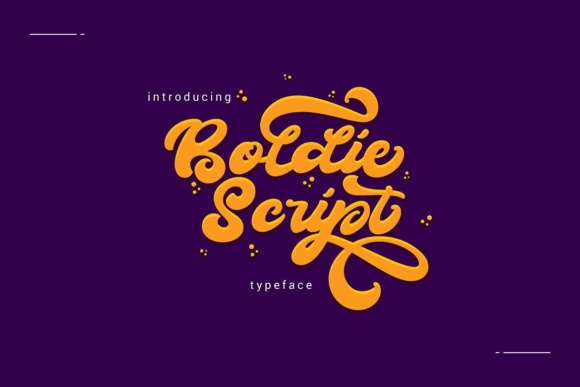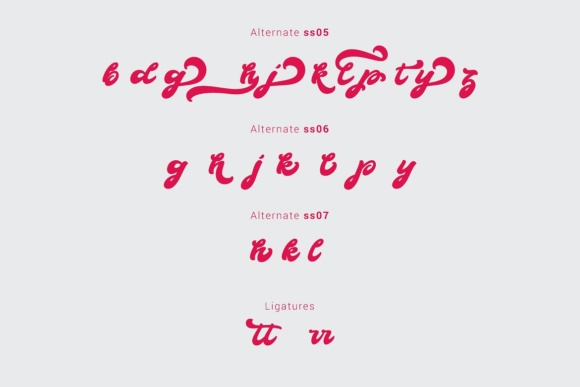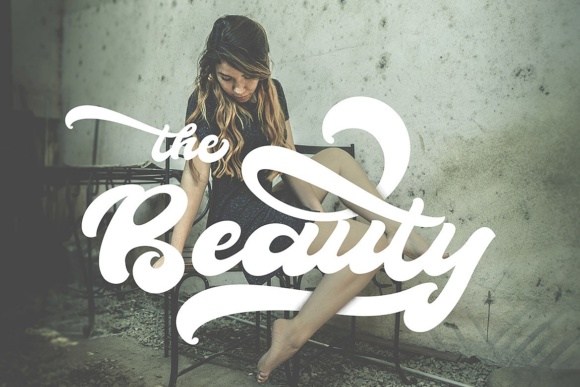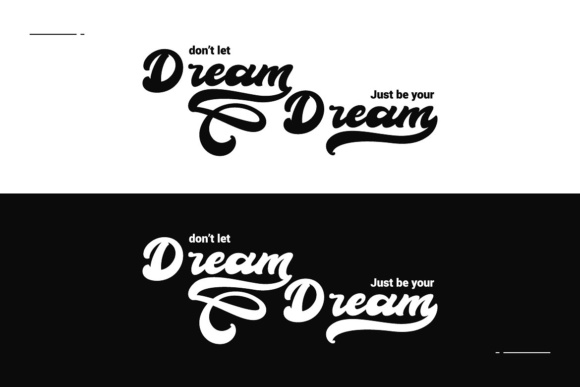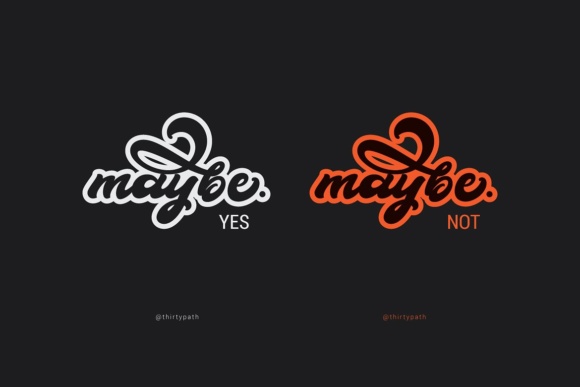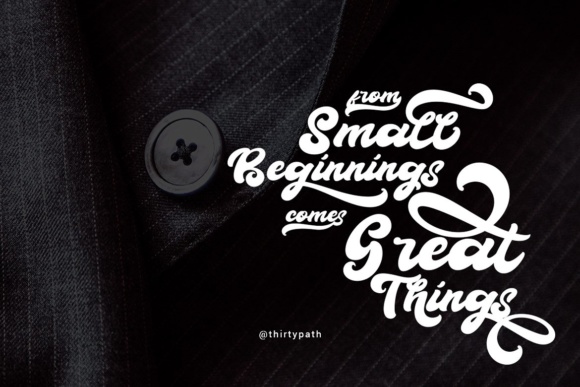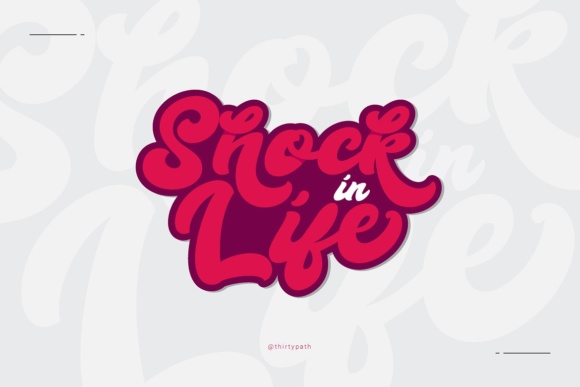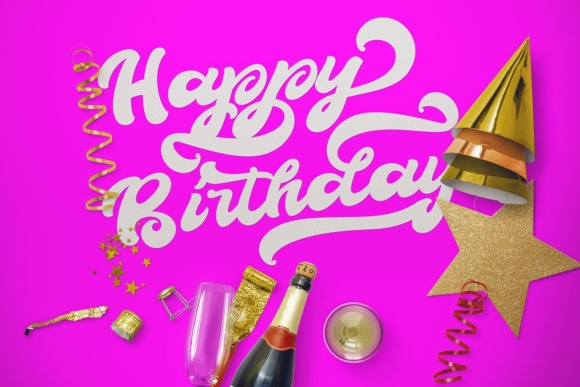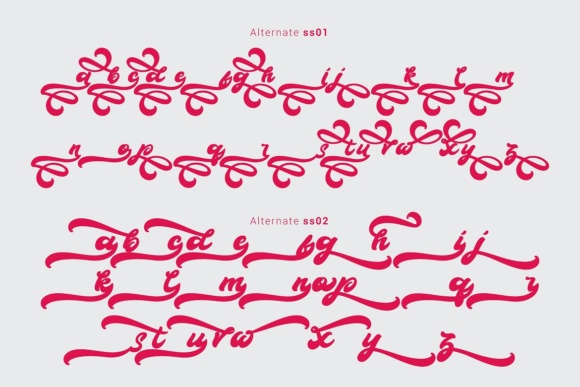
Boldie Script Font
About Boldie Script Font
The Boldie Script is a stunning, bold hand lettered font.
It allows you to add stunning bold typography to your designs in an instant.
With the Boldie Script you are guaranteed to leave an impression.